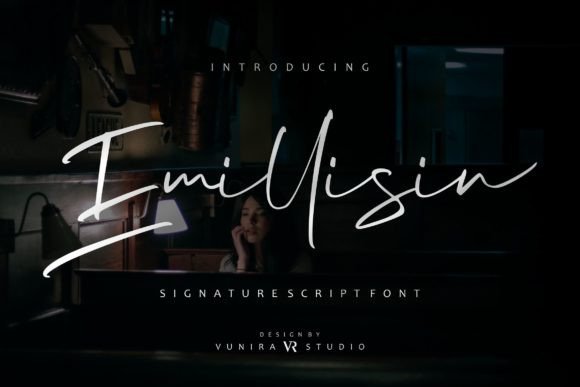
Embark on a Typographic Odyssey with Emillisin: The Quintessential Signature Script Font for Unparalleled Creative Expression
In the realm of digital artistry, where words dance across screens and pixels ignite imaginations, there lies a font that transcends the boundaries of ordinary typography. Emillisin, a modern script font crafted with the utmost care and precision, beckons you to unleash your creativity and leave an indelible mark on the world.
With its elegant calligraphy style, Emillisin possesses an inherent charm that captivates and enchants. Its meticulously crafted curves and flourishes evoke a sense of timeless sophistication, reminiscent of handwritten letters penned with the utmost care. Each letterform is a testament to the artistry and dedication of its creator, Vunira, who poured their heart and soul into bringing this font to life.
Whether you're a seasoned designer or a budding enthusiast, Emillisin is your gateway to boundless creative possibilities. Its versatility knows no bounds, seamlessly adapting to a myriad of projects. Picture your words taking flight on wedding invitations, greeting cards, branding materials, and business cards. Let your imagination soar as you create posters and quotes that resonate with depth and elegance.
With Emillisin as your creative companion, every project becomes a canvas for your artistic expression. Its graceful strokes lend an air of authenticity and sincerity, making your words leap off the page and into the hearts of your audience. Whether you're crafting heartfelt love letters or formal business documents, Emillisin imbues your words with an eloquence that commands attention.
So, dear seeker of beauty, embrace the allure of Emillisin and unlock the boundless potential within your creative soul. Let your fingers dance across your keyboard, guided by the enchanting rhythm of this script font. Discover a world where words transform into art, where emotions find their voice, and where your unique vision takes center stage.